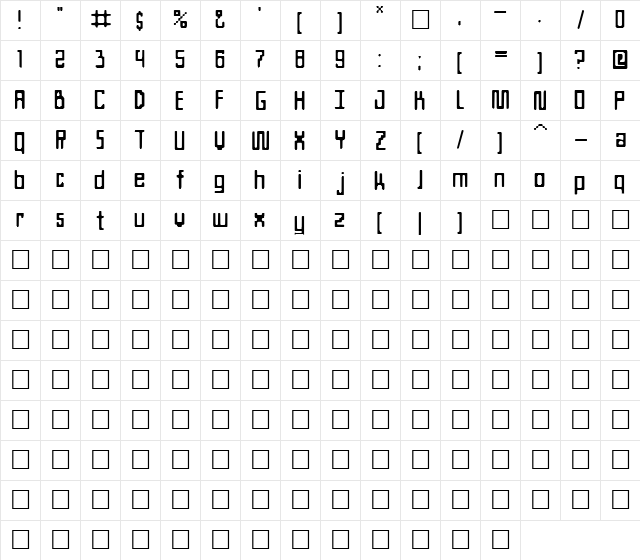
ATeam Normal
Design Context for ATeam Typeface
ATeam is a composed and adaptable typeface that performs quietly and consistently across a wide range of design contexts.
Pro Tip: Pair ATeam with a font of contrasting weight or personality to build a more expressive typographic hierarchy.